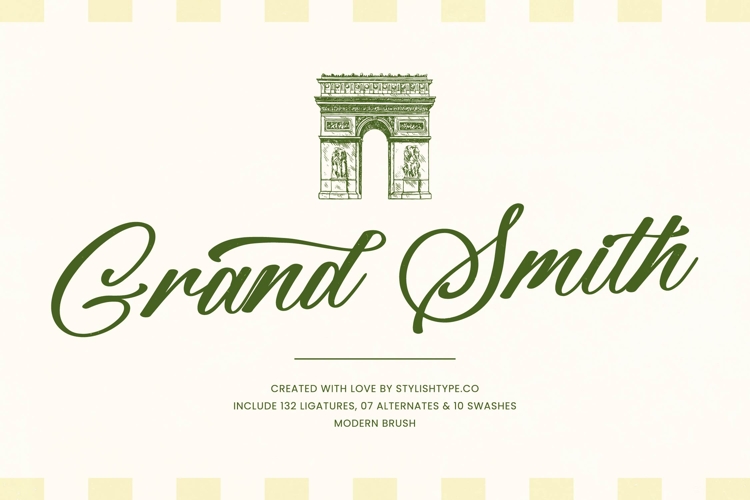
Grand Smith - Modern Brush Font
Elevate your design projects with the authentic fluidity of Grand Smith - Modern Brush Font. This signature script captures the irreplaceable charm of genuine hand-lettering, blending modern elegance with a desirable, subtle brush texture. Its flowing connectivity and balanced baseline ensure immediate readability while maintaining an unmistakable artistic flourish. This typeface is the definitive choice for designers seeking a balance between expressive freedom and polished professionalism.